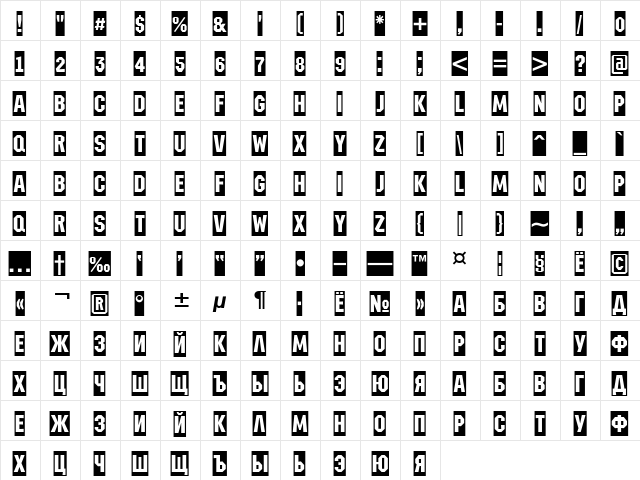
a_MachinaNovaCm Medium
Design Context for a_MachinaNovaCm Typeface
a_MachinaNovaCm is a composed and adaptable typeface that performs quietly and consistently across a wide range of design contexts.